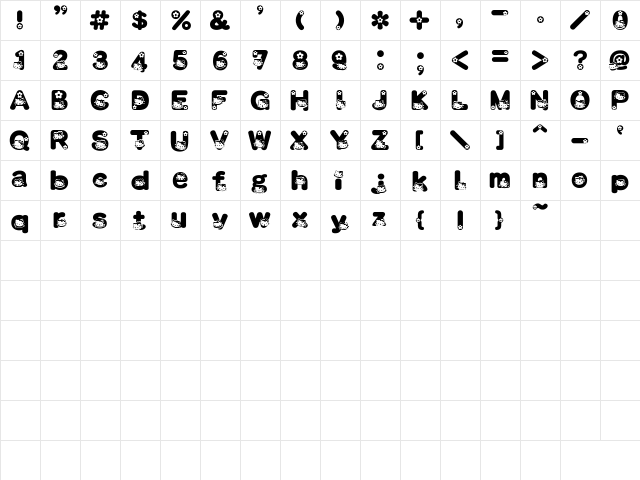
HELLO KITTY FONT Regular Font Preview
HELLO KITTY FONT Regular
Design Context for HELLO KITTY FONT Typeface
HELLO KITTY FONT is a composed and adaptable typeface that performs quietly and consistently across a wide range of design contexts.